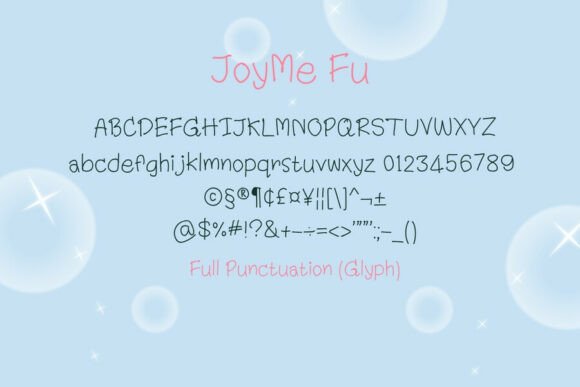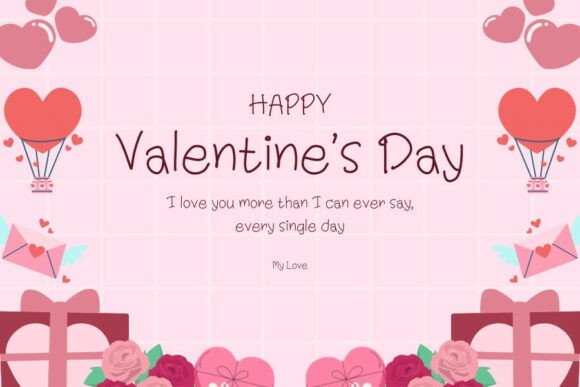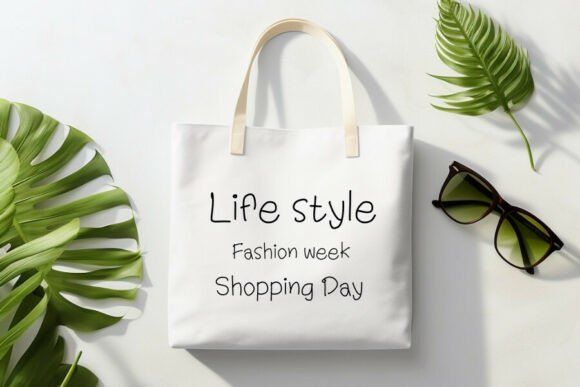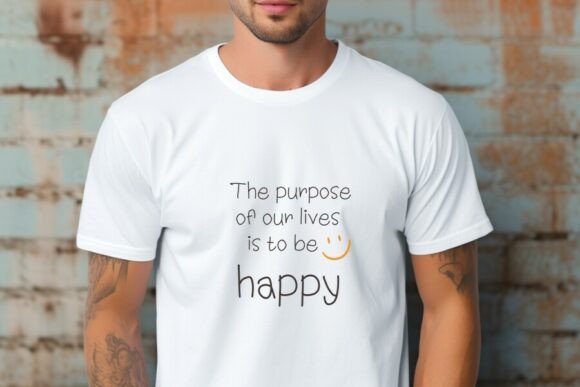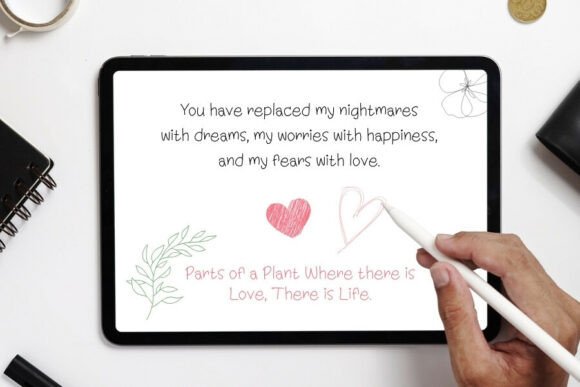
Introduction to Joyme Fu Font
Have you ever found yourself scribbling notes in a meeting, brainstorming ideas for a creative project, or sketching out a new design concept with a felt-tip pen? The tactile experience of putting pen to paper can be incredibly freeing, and it’s this same feeling of effortless creativity that the JoyMe Fu Font aims to capture.
As a versatile sans serif handwriting font, JoyMe Fu Font offers a unique blend of high-quality design and approachable charm. Its organic strokes and airy spacing make it an ideal choice for designers seeking a friendly and legible typeface that’s perfect for a wide range of applications, from educational materials to casual social media posts.
Whether you’re looking for a design resource to elevate your next creative project or simply want a free download to add some personality to your branding, JoyMe Fu Font is sure to bring a sense of lighthearted joy to your text without sacrificing professional clarity.
Key Features of Joyme Fu Font
- High-quality design resource ideal for creative projects, including logos, icons, and graphics.
- Features a transparent background, allowing for seamless integration with other design elements.
- Includes a wide range of characters, including letters, numbers, and symbols, making it a versatile font for various creative projects.
- Designed with a modern and sleek aesthetic, the Joyme Fu Font is perfect for contemporary designs, from branding to packaging.
Honest Review: Joyme Fu Font
As a designer, I’m always on the lookout for high-quality design resources that can elevate my creative project. Recently, I stumbled upon the Joyme Fu Font, and I must say, it’s been a pleasant surprise.
What works well with this font is its versatility. ✨ It’s perfect for creating a modern and minimalist aesthetic, making it ideal for logos, branding, and digital design. The font’s clean lines and subtle curves give it a sophisticated look that’s sure to impress.
- Perfect for modern and minimalist designs
- Transparent background, making it easy to use with various design elements
However, there are a few limitations to consider. ⚠️ For one, the font may not be as suitable for traditional or vintage-inspired designs. Additionally, the font’s lack of bold and italic styles may limit its use in certain situations.
Overall, I’m impressed with the Joyme Fu Font. Its high quality and versatility make it a valuable addition to any designer’s toolkit. While it may have some limitations, it’s definitely worth considering for your next creative project.
Design Resource for Your Creative Project
The Joyme Fu Font is a high-quality design resource that can elevate your creative project. This font is perfect for designers and artists looking for a unique and stylish typography to add to their work.
Tips for Getting the Most Out of Joyme Fu Font
To get the most out of the Joyme Fu Font, experiment with different font sizes, colors, and combinations to create unique and eye-catching designs.
The Joyme Fu Font is perfect for:
- Print and digital advertising